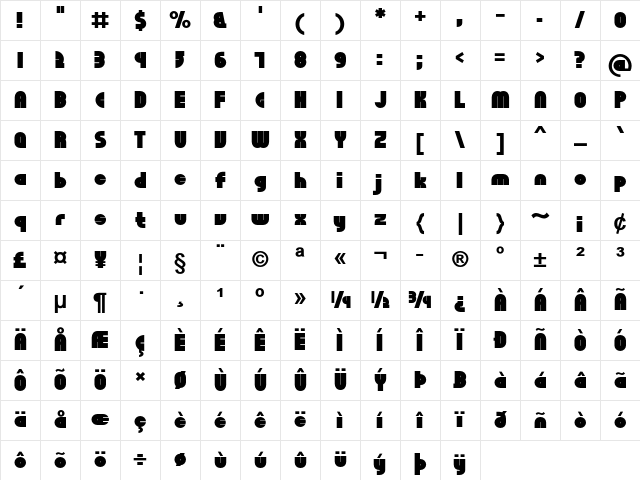
Mulberry is a composed and adaptable typeface that performs quietly and consistently across a wide range of design contexts. Its bold stroke weight gives it real presence on the page.